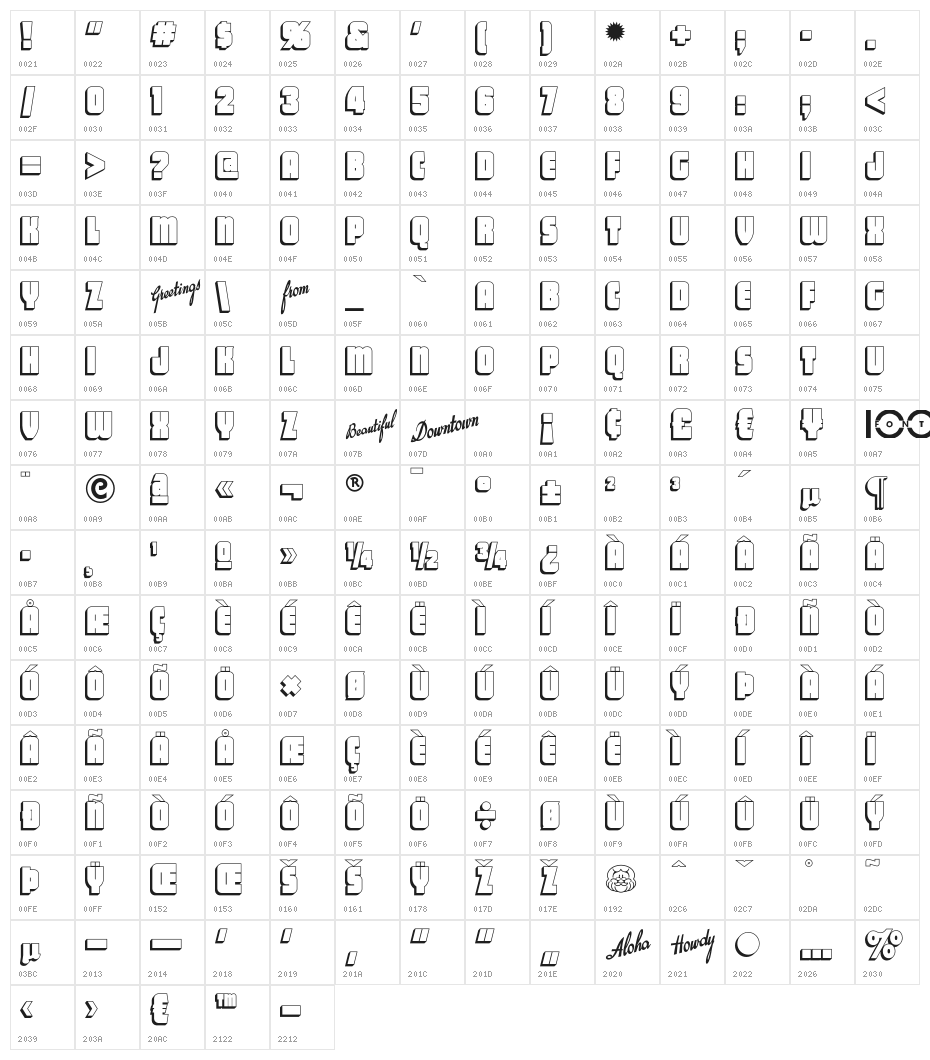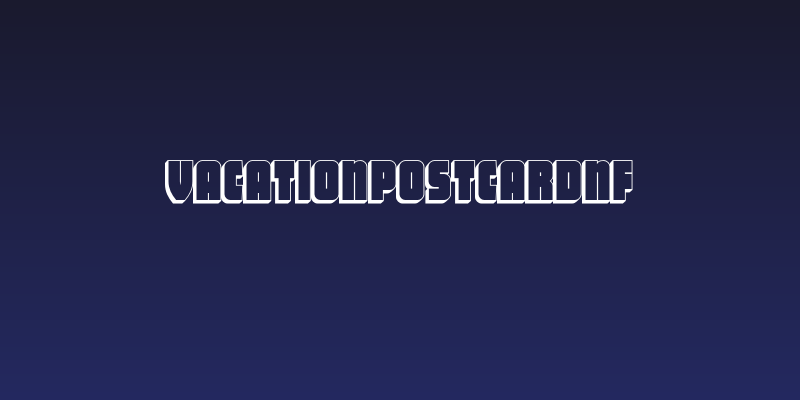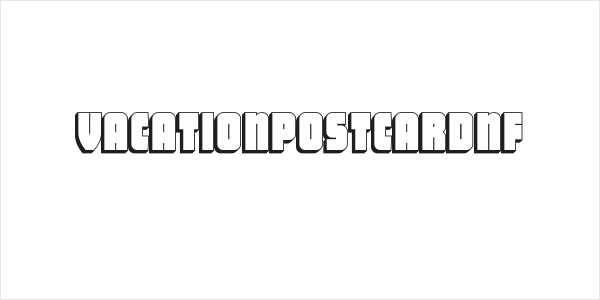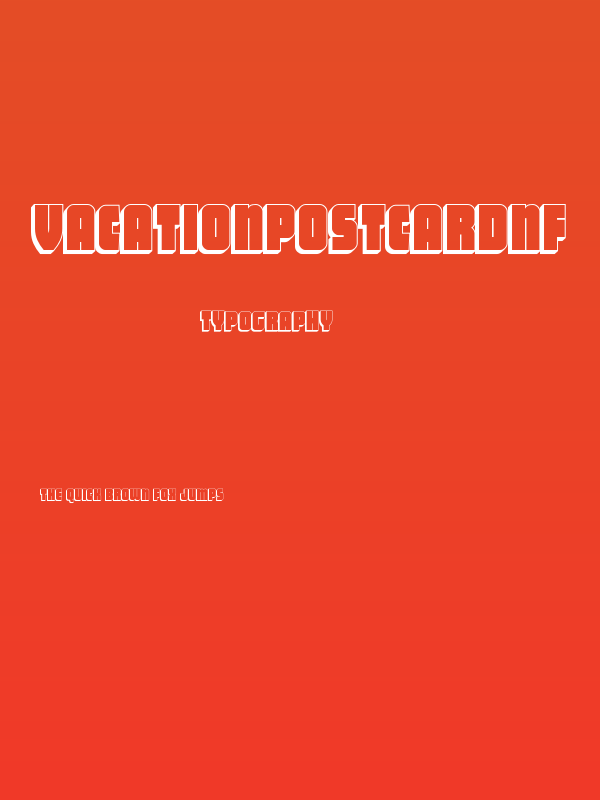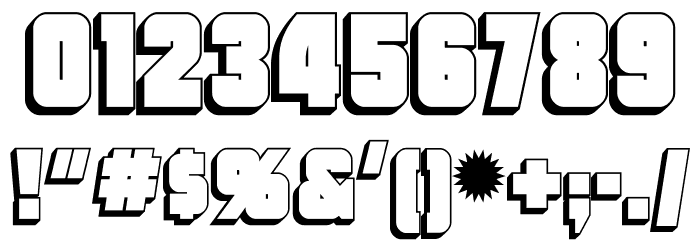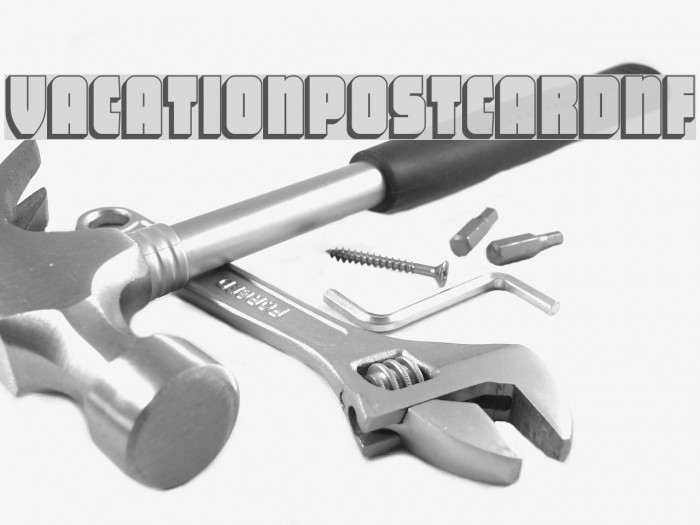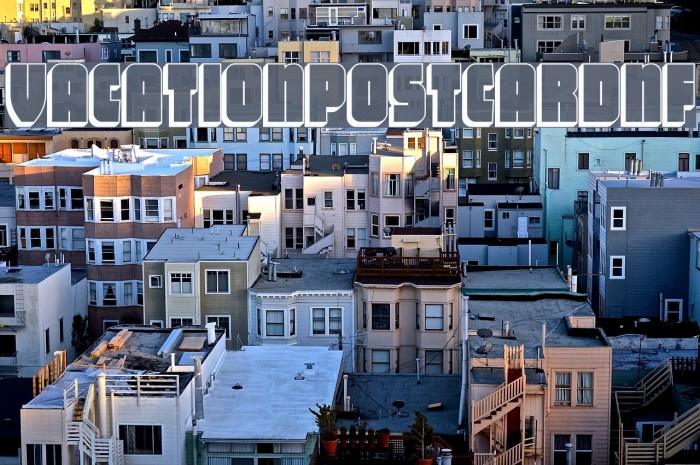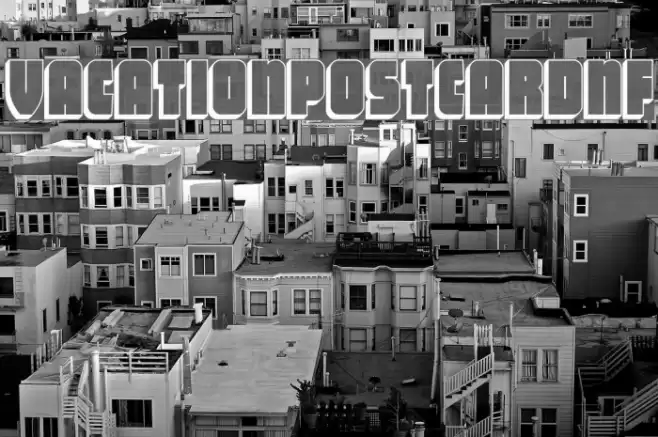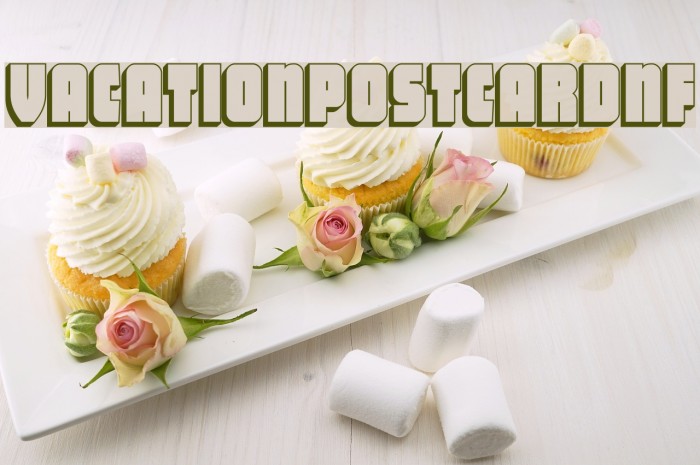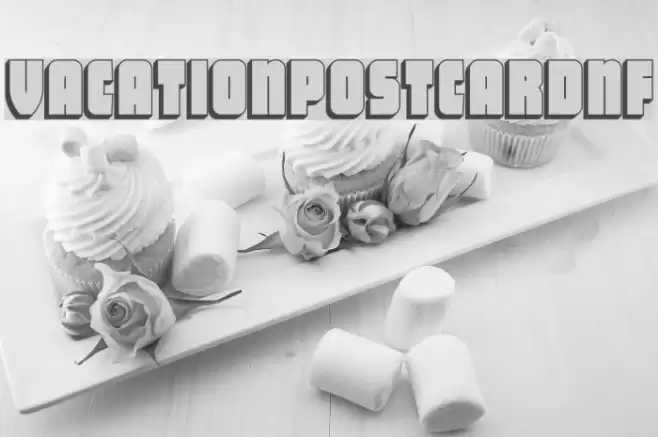
VacationPostcardNF Font
| Familia fontului | Vacation Postcard NF |
| Proiecte propuse | Ideal for retro-themed designs, posters, signage, and any project requiring a bold, eye-catching typeface. |